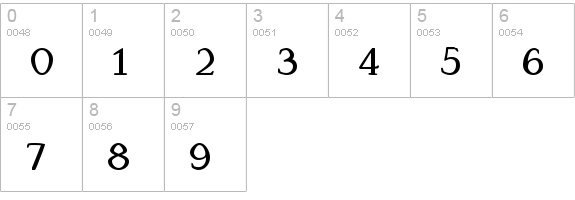
EuroikaKamp Bold Font Details
EuroikaKamp Bold is a strong, high-contrast variant in the EuroikaKamp typeface family \xE2\x80\x94 well suited to headlines, attention-grabbing titles, and strong calls-to-action.
EuroikaKamp Bold is a striking and versatile display font that commands attention with its bold and modern aesthetic. With clean lines and a strong presence, this font is perfect for making a statement in headlines, logos, posters, and more. The bold weight of EuroikaKamp adds a sense of confidence and impact to any design project. This font is freely available to download at FontsMarket.com, making it accessible to designers and creatives looking to add a touch of boldness to their work. Whether you're working on a branding project, advertising campaign, or any other design endeavor, EuroikaKamp Bold is sure to make a bold statement and leave a lasting impression.